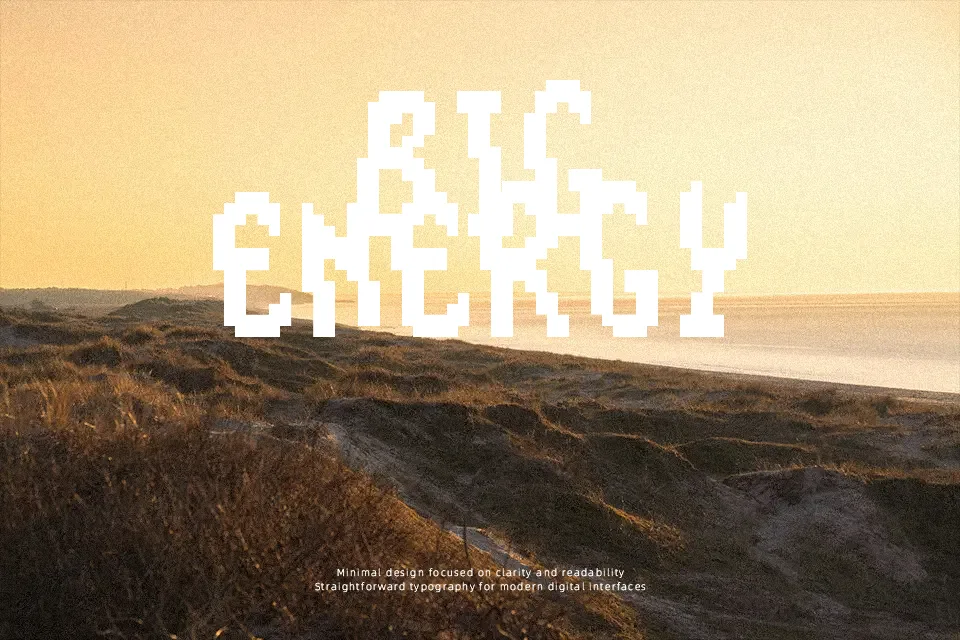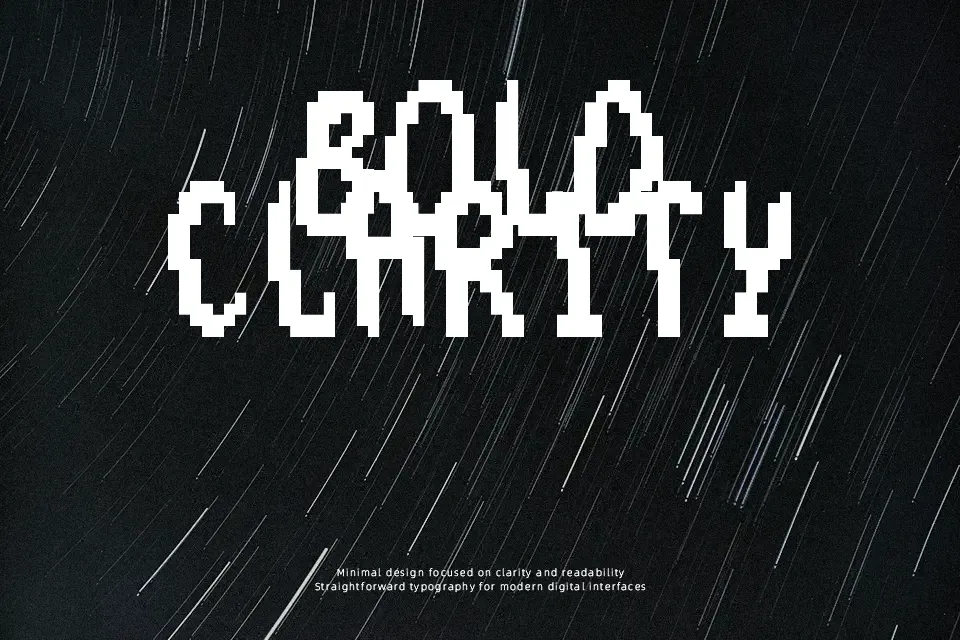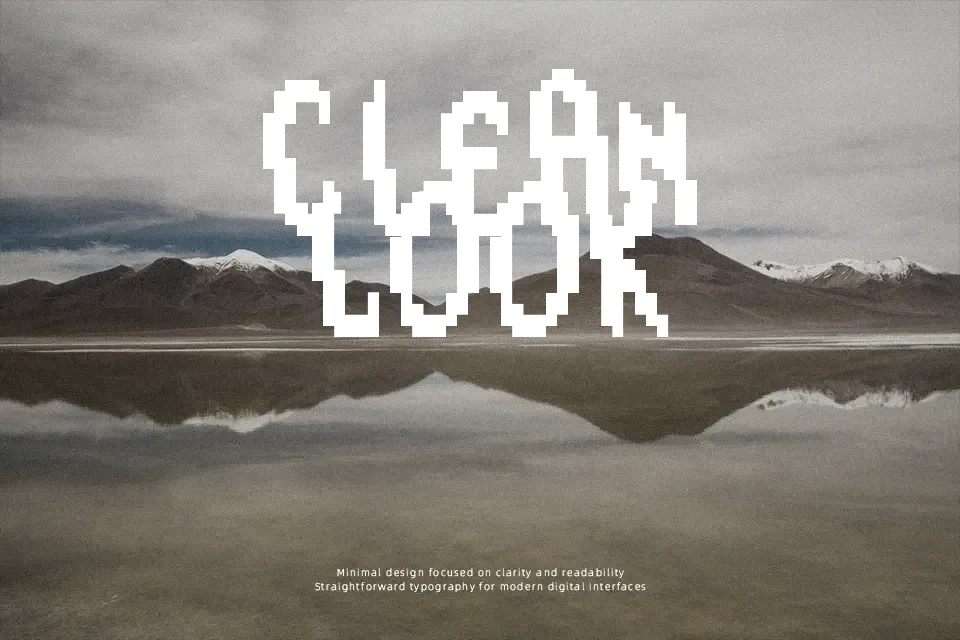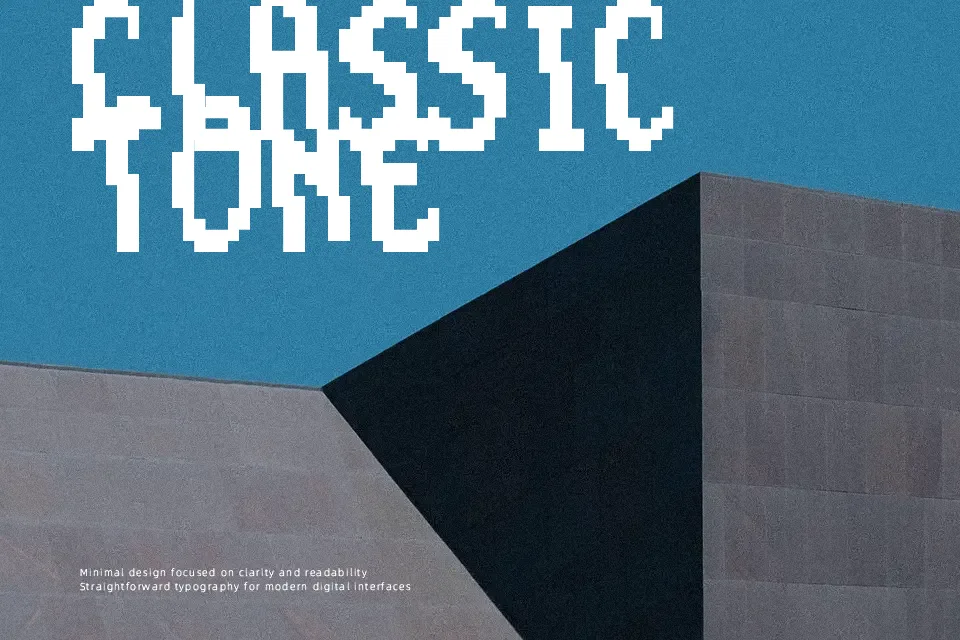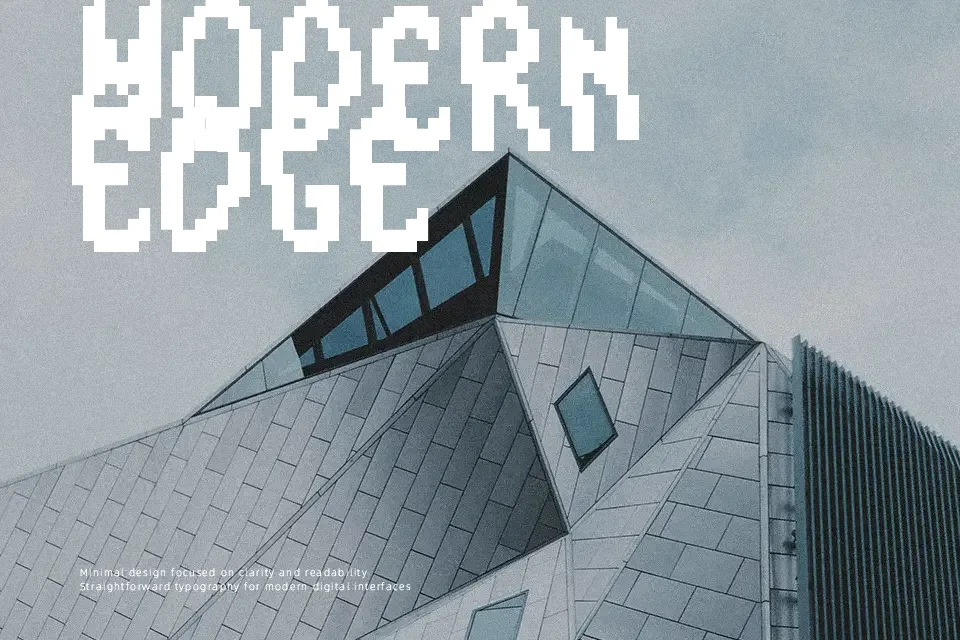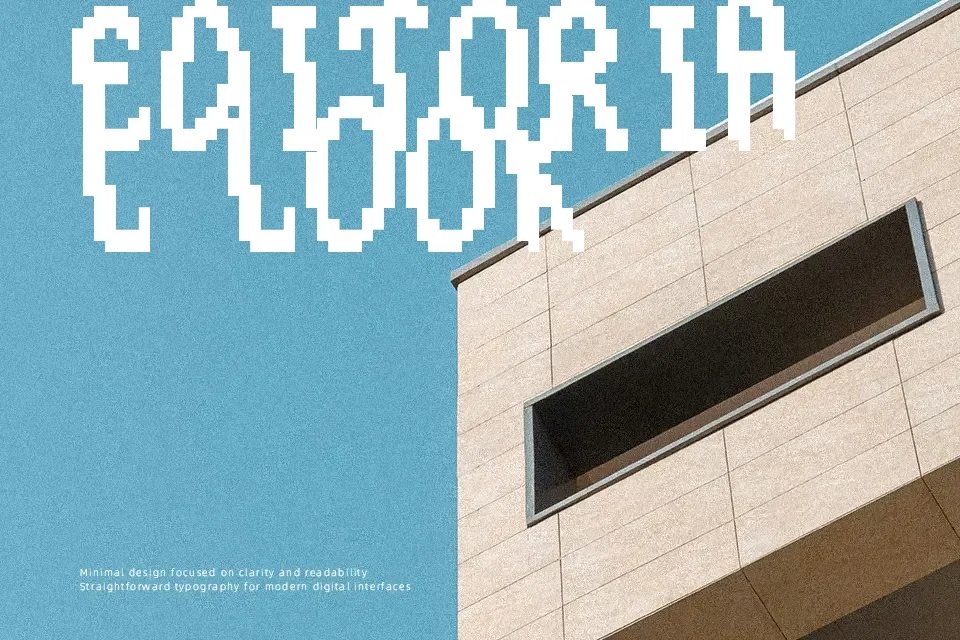
The Smurfs Large Font Font
The Smurfs Large Font Font features a rigid, modular structure built entirely from uniform square pixels and thick, unmodulated strokes. Each character maintains consistent block proportions with tight, mechanical spacing that reinforces a distinct vintage arcade aesthetic. While the bold silhouette ensures immediate legibility in large headings, arcade badges, and nostalgic game interfaces, readability drops sharply as character dimensions decrease. The lack of optical compensation makes this typeface ineffective for continuous text. Consequently, the design performs best when restricted to short display titles, whereas dense paragraph layouts and small interface captions quickly collapse into indistinguishable shapes.
Best For: retro video game title screens, arcade stream overlays, pixel art poster headlines
Not Ideal For: long paragraph text, mobile interface body copy, dense editorial layouts
Perfect for gaming, headline, and poster, with a bold and display style.